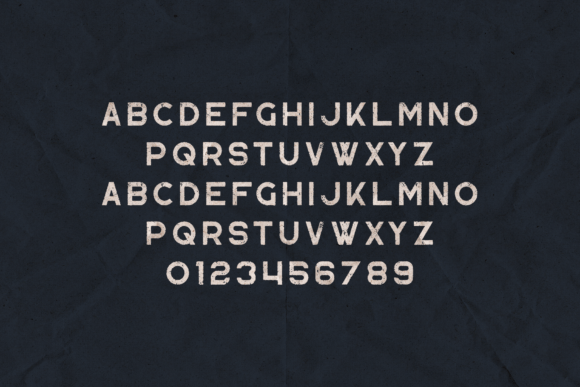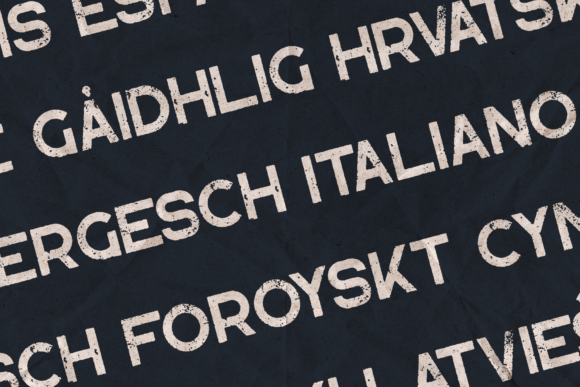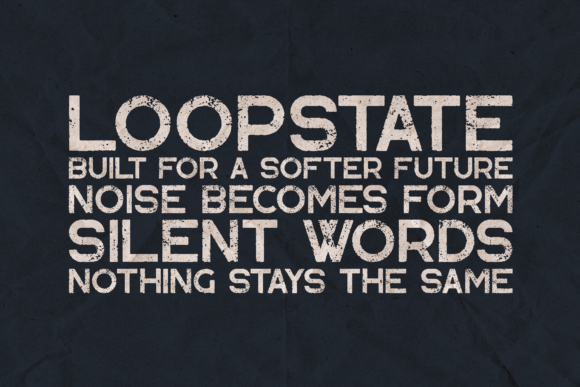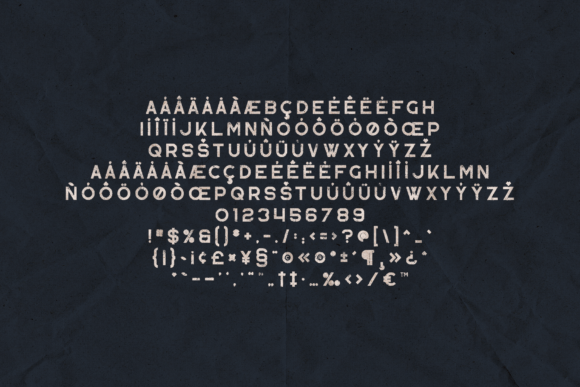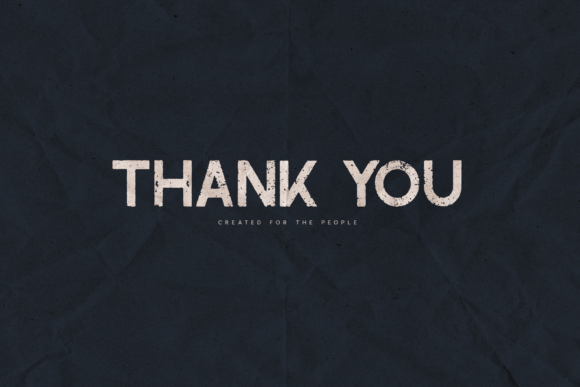
Introduction to Brontide Font
Brontide is a bold, distressed display sans font with a raw, textured character and strong visual presence.
Designed for impactful headlines, posters, branding, and editorial layouts, it brings an organic, worn-in feel while remaining highly readable This Brontide typeface features thick, bold letterforms with a heavily distressed โstampโ effect that suggests raw power and urban decay.